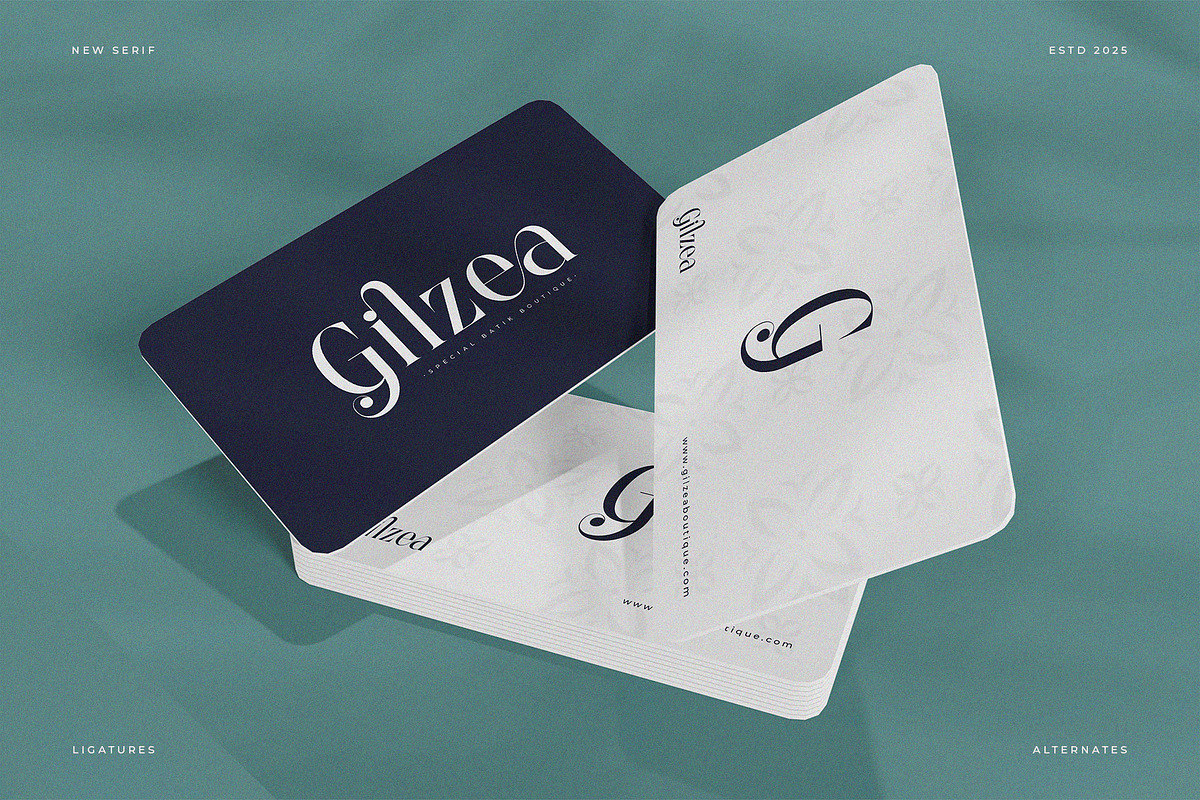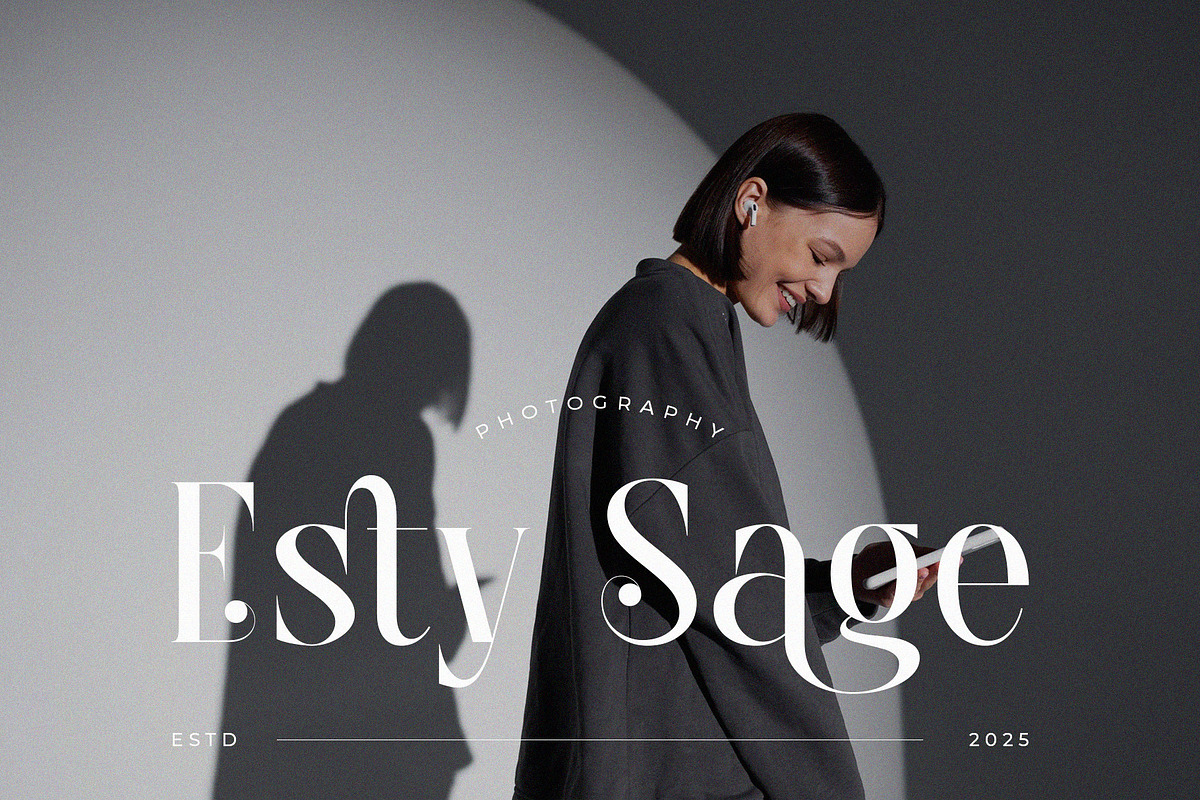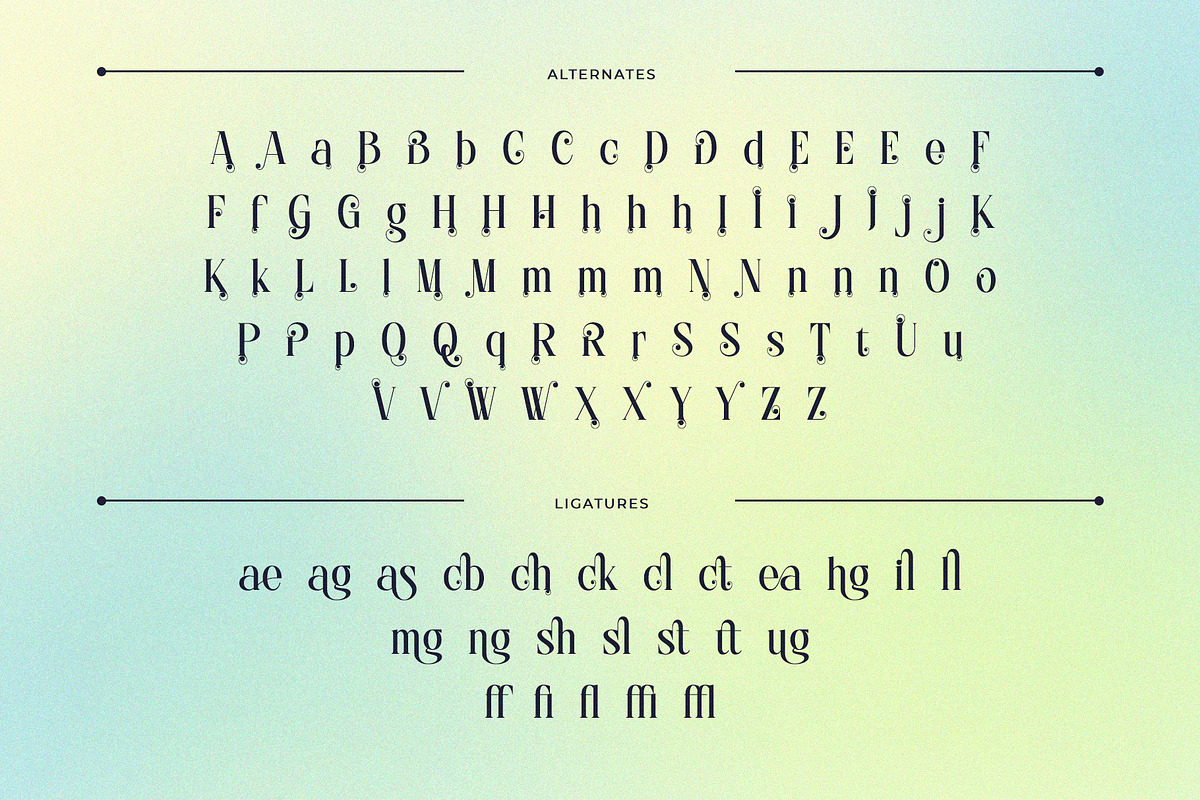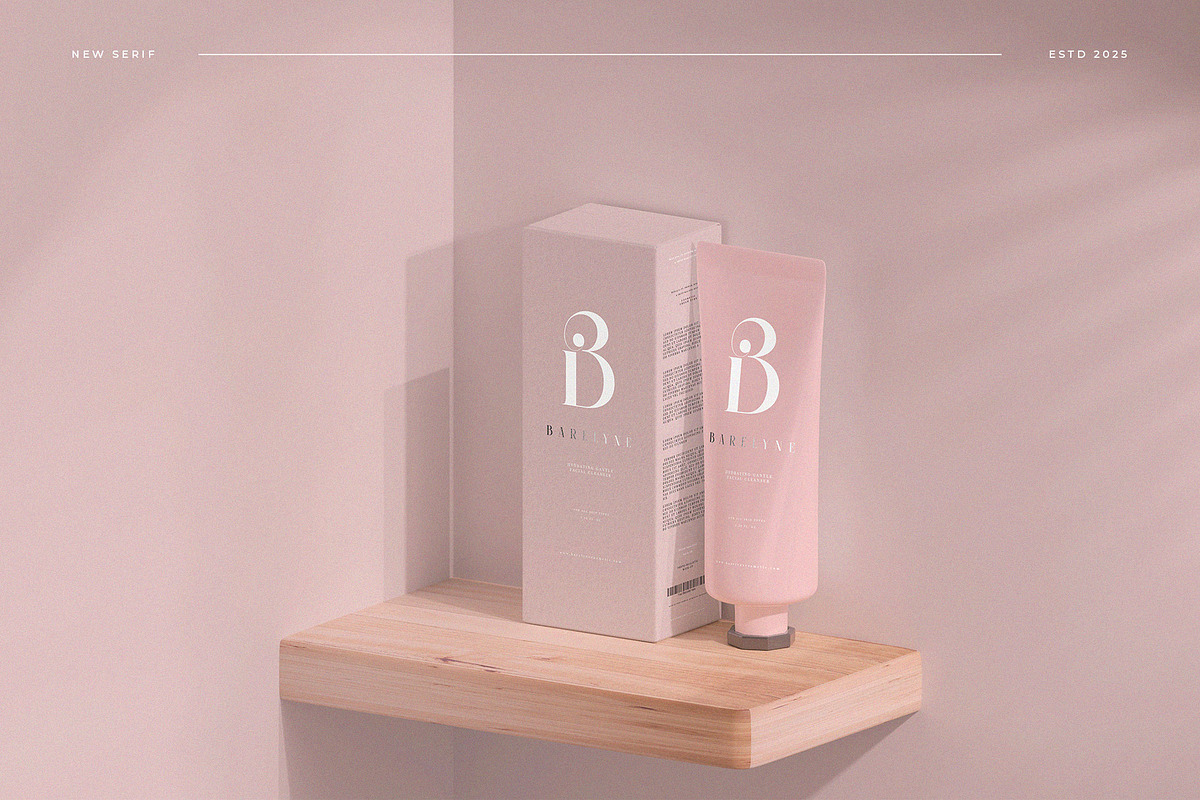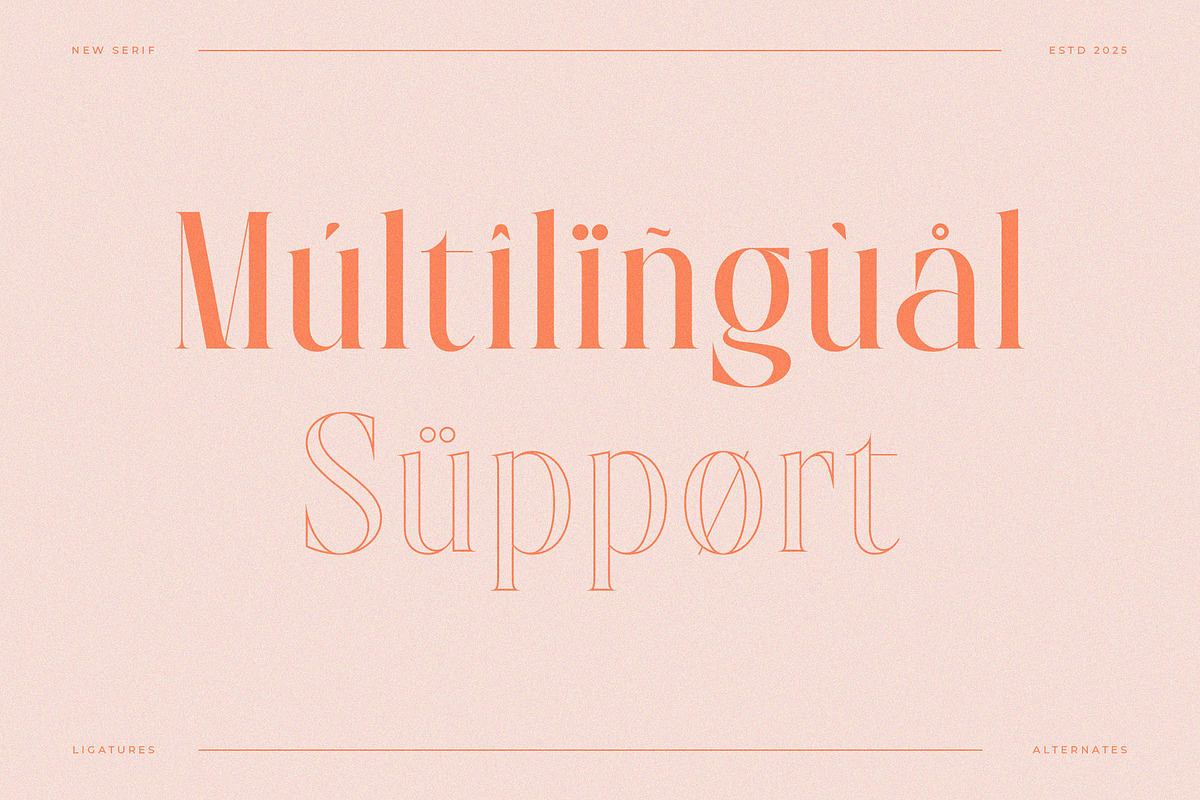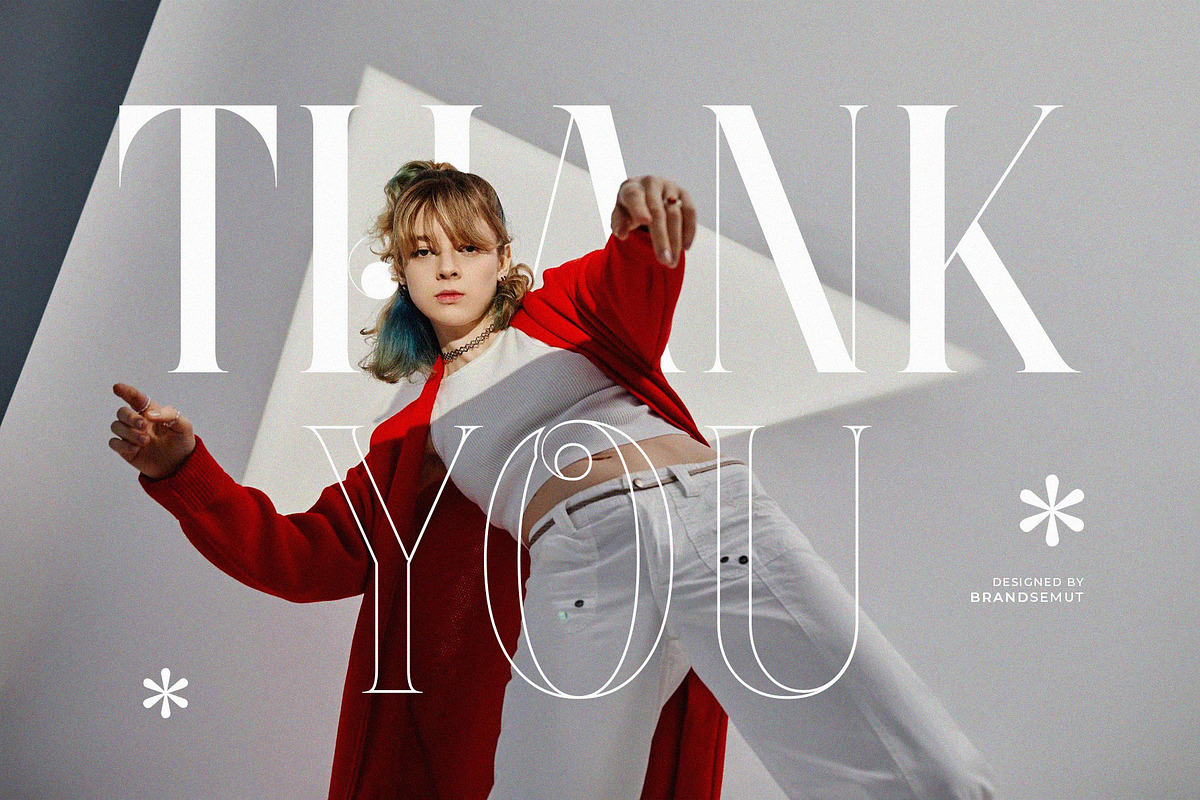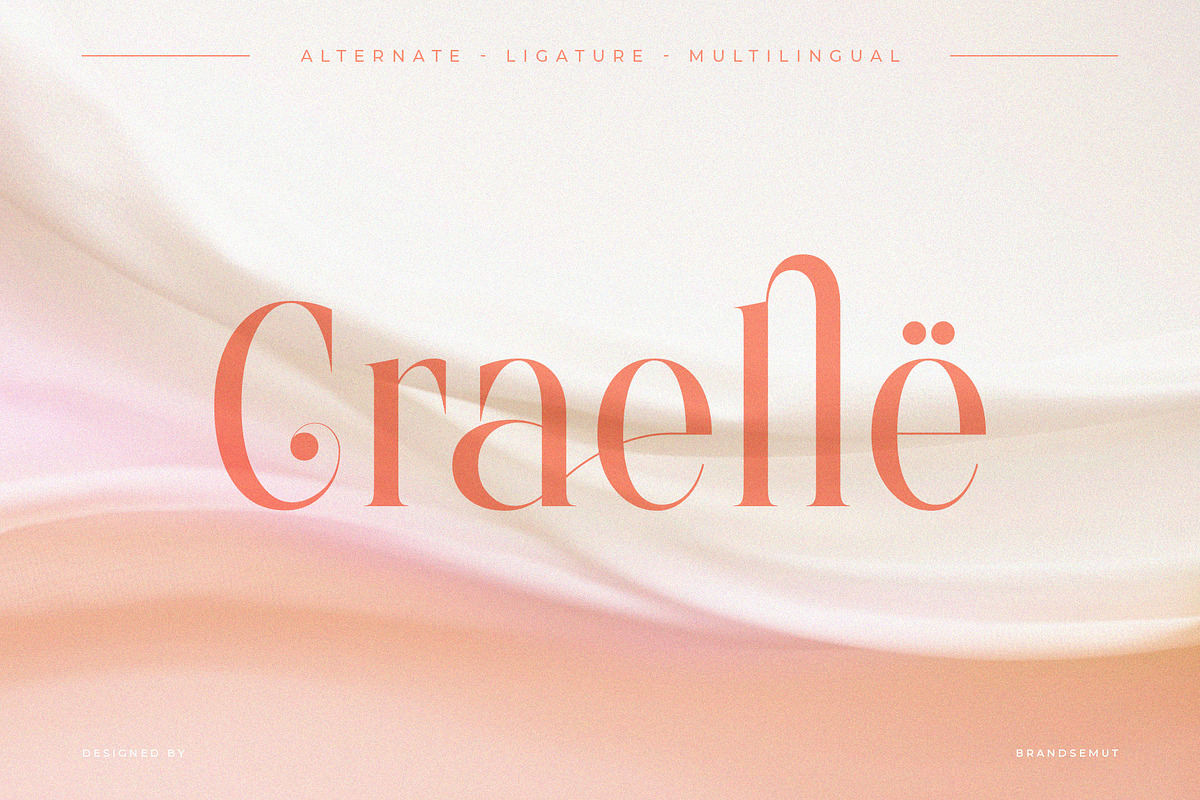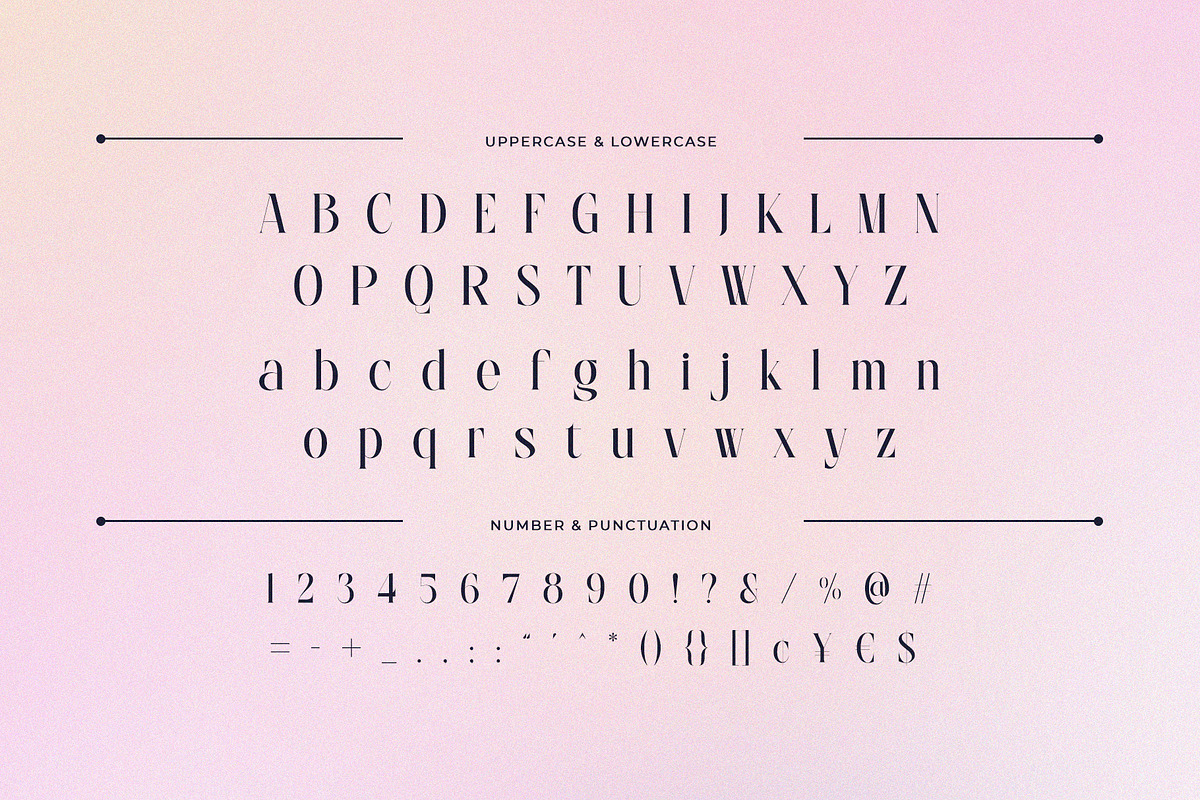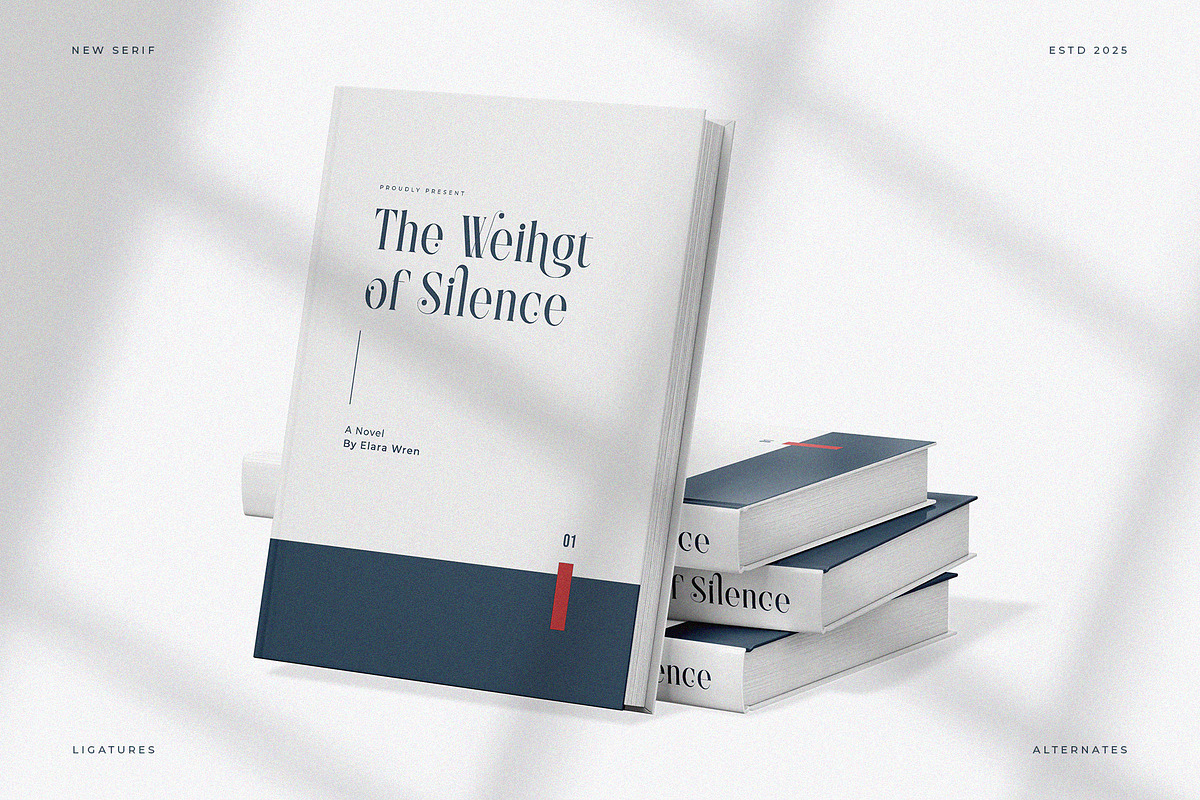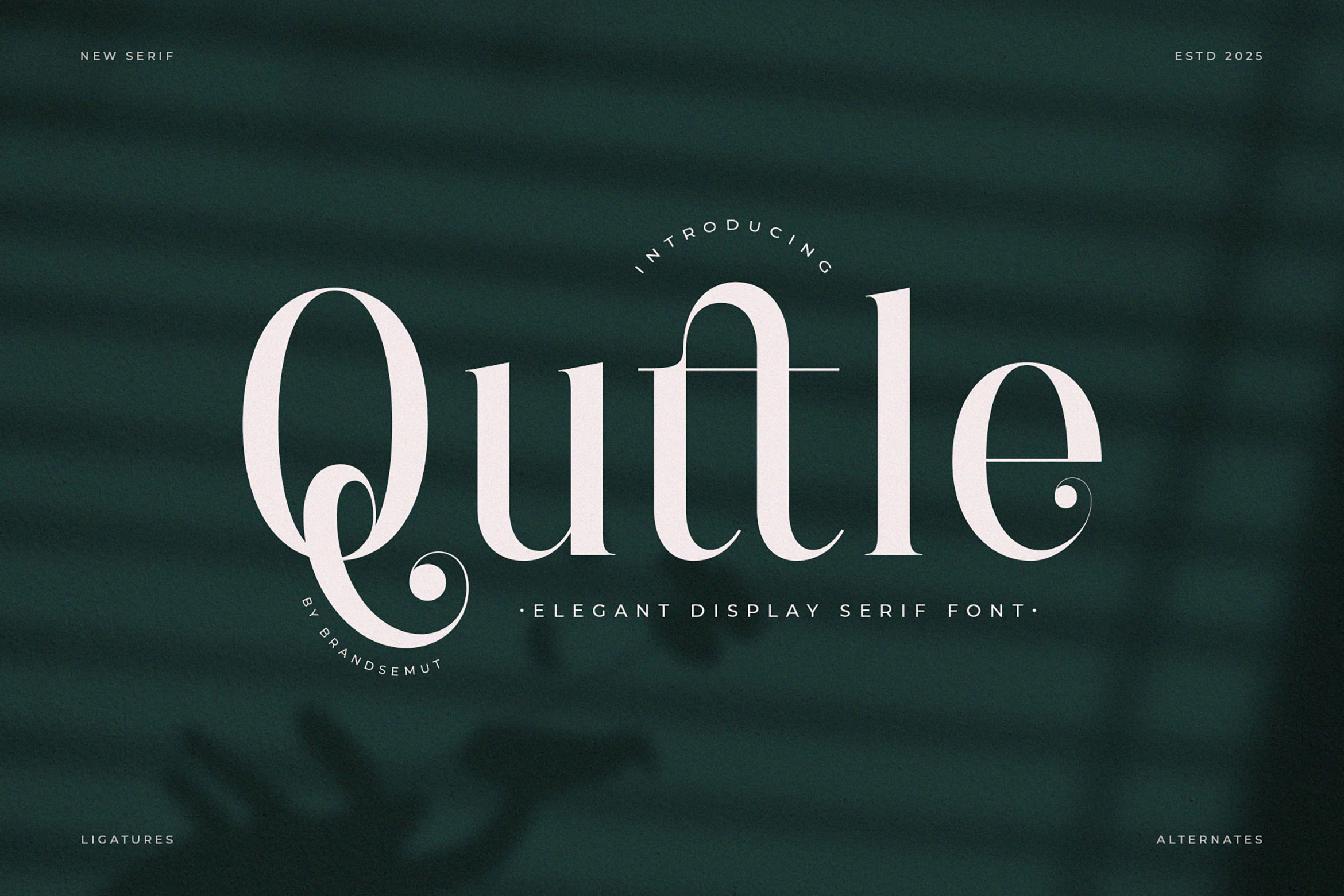
Quttle – Elegant Display Serif Font
Quttle – Elegant Modern Display Serif Typeface with High Contrast & Stylistic Alternates
Quttle is an elegant and modern display serif typeface characterized by high contrast between thick and thin strokes, refined curves, and meticulously designed terminals. Engineered to deliver sophistication and clarity, Quttle is ideally suited for high-impact headlines, luxury branding, editorial titles, and upscale packaging design.
The font includes a full set of uppercase and lowercase characters, stylistic alternates, discretionary ligatures, and multilingual support. Its unique form combines geometric precision with ornamental flair, enhancing readability while maintaining artistic distinction.
Designed for professional use, Quttle excels in a wide range of creative applications such as magazine layouts, fashion lookbooks, product packaging, corporate identities, and social media graphics that require a clean yet expressive typographic style.
Font Specifications:
- Font Style: Display Serif
- Features: Uppercase & Lowercase, Alternates, Ligatures
- Multilingual Support: Latin-based characters
Ideal Applications:
- Luxury product branding
- Fashion editorials & magazine headers
- High-end packaging & label design
- Elegant website titles & UI headings
- Creative social media visuals
- Wedding & invitation typography
Quttle combines typographic elegance with technical accuracy—making it a powerful asset for any professional designer or creative studio.